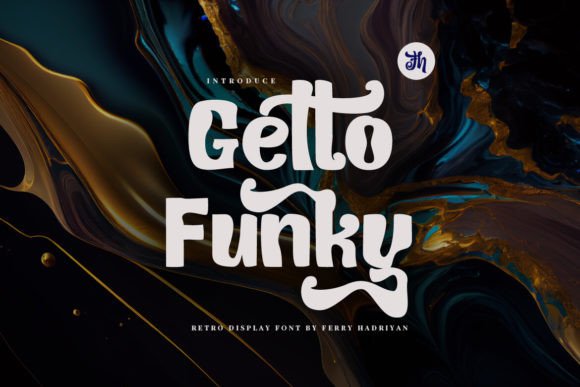
Introducing Getto Funky Font, the ultimate display font that will add a touch of retro fun to your design projects! Created by feydesign, this font is not just your average typeface; it is a work of art that will captivate and inspire.
Getto Funky Font is the perfect choice for those looking to make a statement. Its fun and playful style will instantly grab the attention of your audience and leave a lasting impression. With its unique swashes and OpenType features, this font offers endless possibilities for creative expression.
Whether you are designing a logo, creating elements for an event, or working on any design project, Getto Funky Font is your go-to solution. Its versatility allows it to adapt to any theme or concept, making it an essential tool in your design arsenal.
But what sets Getto Funky Font apart from the rest? Its ability to elevate your designs and bring them to life. With this font, you can effortlessly convey emotions and create a visual experience that resonates with your audience. From vintage-inspired designs to modern and edgy concepts, Getto Funky Font is the perfect companion for your creative journey.
Don't settle for ordinary fonts when you can have the best font to use for tiny text. Getto Funky Font will ensure that your message stands out, even in the smallest of spaces. Its legibility and attention to detail make it the ideal choice for any project requiring precision and style.
Getto Funky Font - where creativity meets excellence. Get ready to make a bold statement and leave a lasting impression. Let your designs speak volumes with this one-of-a-kind font that is sure to elevate your work to new heights.